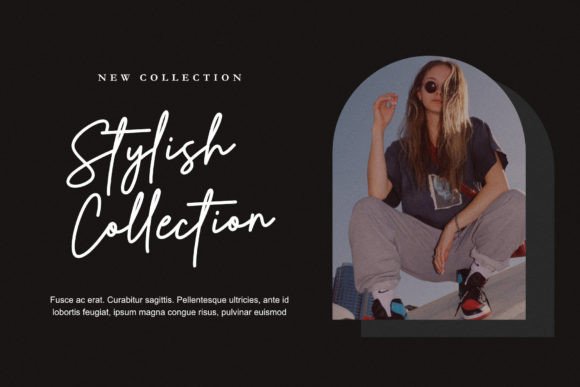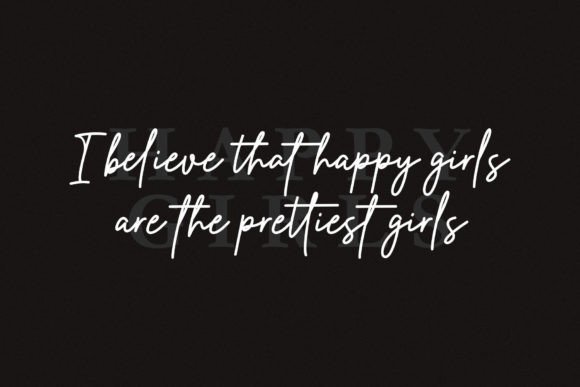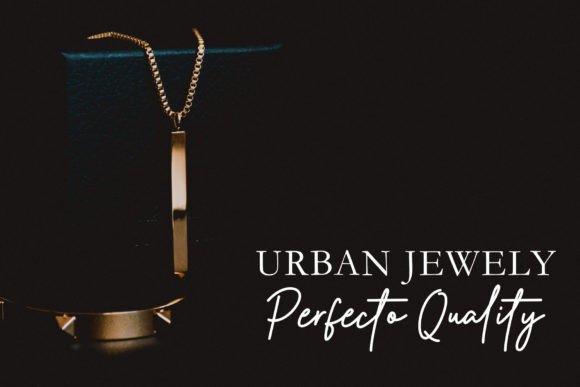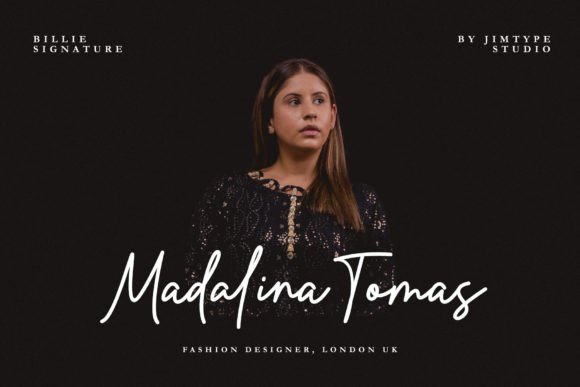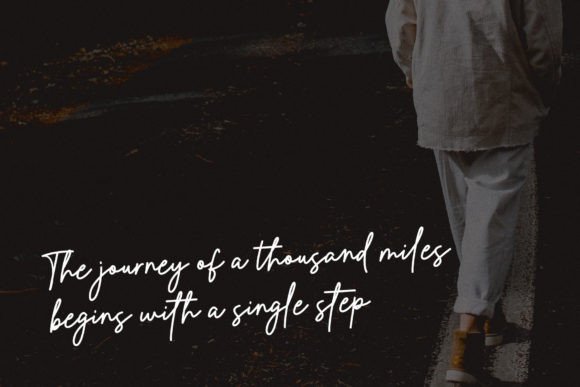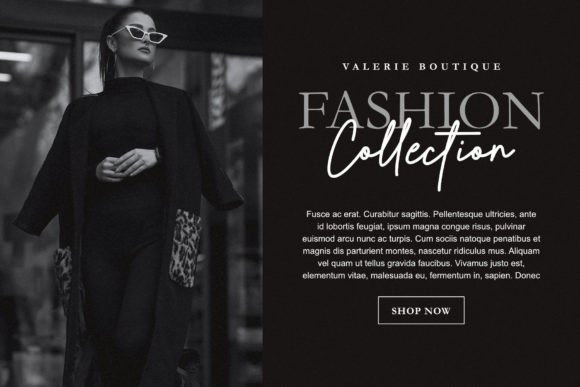
The Perfect Script Font for Your Next Creative Project
Have you ever stared at a blank page, trying to bring your latest design idea to life, only to be met with a sea of generic fonts that just don’t cut it? We’ve all been there. But what if you could add a touch of elegance and sophistication to your work with just one font? Enter the Billie Signature Font, a stunning script font that’s sure to elevate your designs and make a lasting impression.
Designed with flair and a dash of whimsy, the Billie Signature Font is perfect for wedding invitations, branding, and editorial projects that require a touch of refinement. With its flowing curves and elegant letterforms, this font is sure to make a statement while remaining effortlessly beautiful. And with its PUA encoding, you can access all glyphs and swashes with ease, making it a valuable asset for any designer looking to add some personality to their work.
Billie Signature Font Key Features
- Font Family: Billie Signature is a unique, hand-drawn script font designed to mimic the signature of Billie Eilish.
- Unique Characteristics: Billie Signature Font features a distinctive, flowing script style with subtle flair and connection between letters, perfect for adding a touch of personality to designs.
Billie Signature Font Review
Overall, I think the Billie Signature Font is a great addition to any designer’s toolkit. Here’s what I like about it:
- ✨ Unique, modern aesthetic that’s perfect for creative projects
- ✨ High-quality glyphs and excellent rendering
- ✨ Supports a wide range of languages, making it a great choice for global projects
- ✨ Easy to read, even at small font sizes
That being said, there are a few limitations to consider:
- ⚠️ Limited character set, which may not be ideal for projects that require a large number of special characters
- ⚠️ Some users may find the font’s weight and spacing inconsistent, which can affect readability
- ⚠️ Not ideal for large blocks of text, as the font’s design can become overwhelming
Overall, I’d give the Billie Signature Font 4 out of 5 stars. While it has some limitations, its unique style and high-quality glyphs make it a great choice for designers who want to add a touch of creativity to their projects.
Use Billie Signature Font for creative and artistic purposes, such as logos, posters, and social media graphics. Experiment with different font sizes, colors, and effects to create a unique look.
Billie Signature Font is ideal for:
- Social media graphics
- Poster design
- Branding materials
Alternatives to Billie Signature Font for Designers
Great Vibes is a modern script font designed by Handmade Font Foundry. It’s perfect for adding a touch of elegance and sophistication to your designs, especially for headings, titles, and logos. Great Vibes has a more fluid and cursive feel compared to Billie Signature Font, which makes it ideal for creating a sense of movement and flow.
Alex Brush is a hand-drawn brush script font designed by Pablo Impallari. It’s great for creating a personal and creative feel in your designs, especially for quotes, headings, and titles. Alex Brush has a more organic and handwritten feel compared to Billie Signature Font, which makes it perfect for adding a touch of warmth and personality.
Carolyna Pro is a modern script font designed by Carolyna Rodriguez. It’s perfect for adding a touch of luxury and sophistication to your designs, especially for headings, titles, and logos. Carolyna Pro has a more refined and elegant feel compared to Billie Signature Font, which makes it ideal for creating a sense of high-end quality.